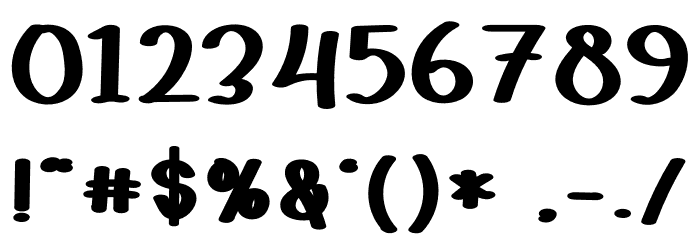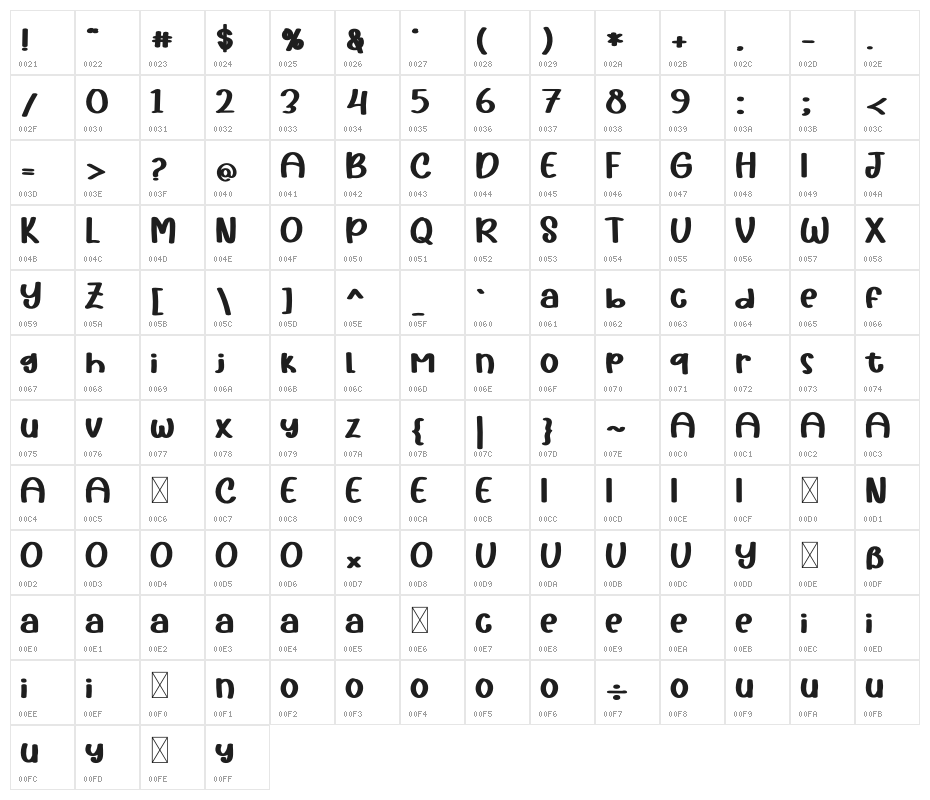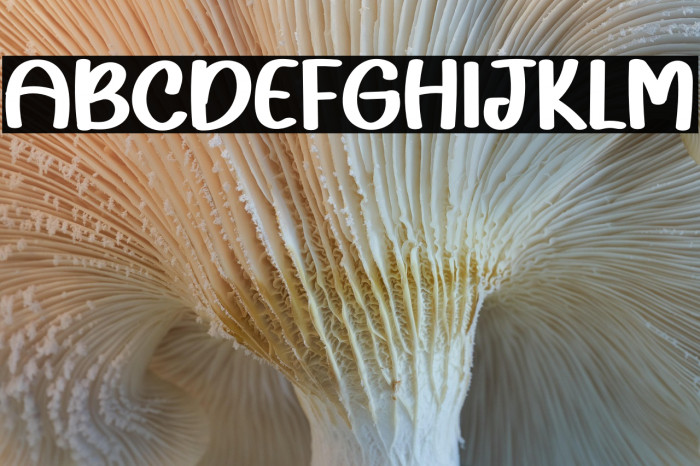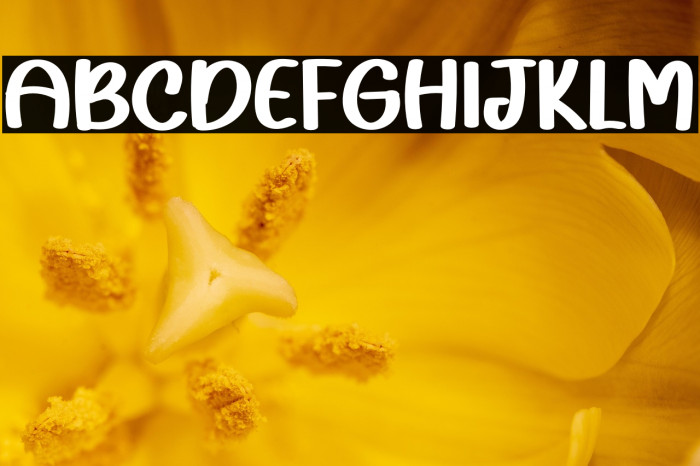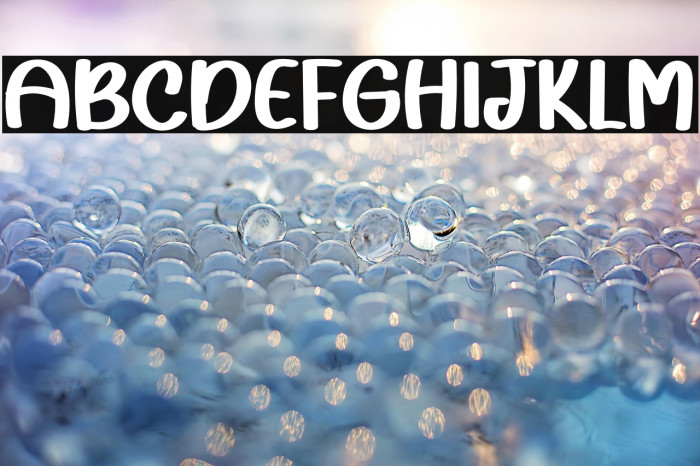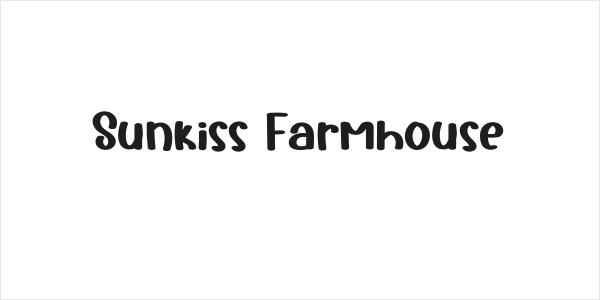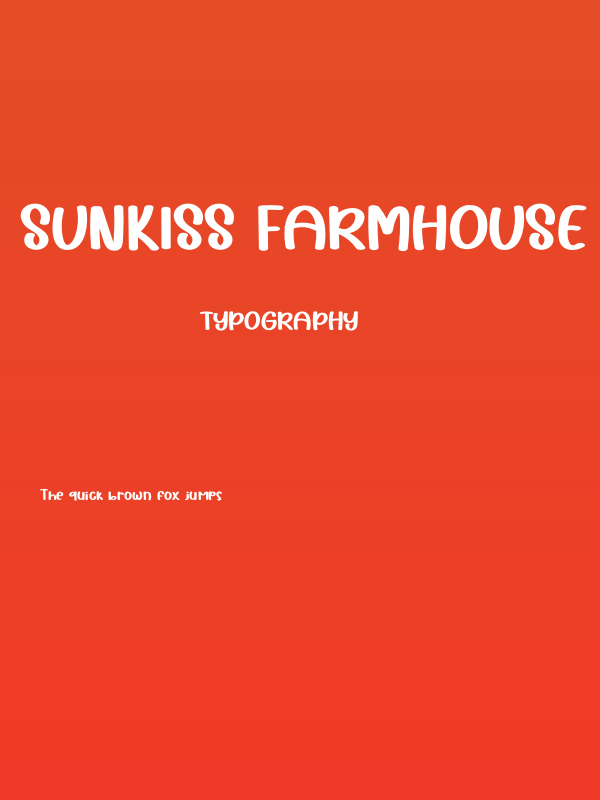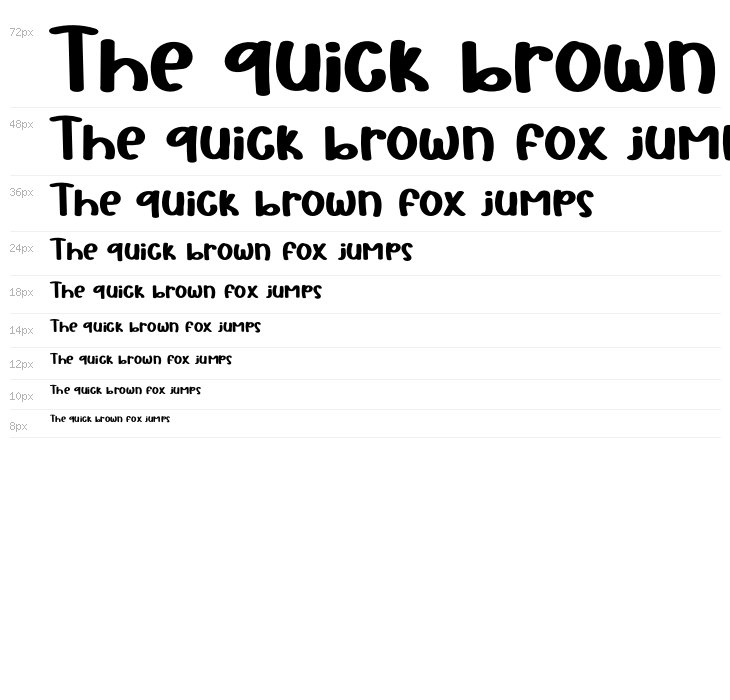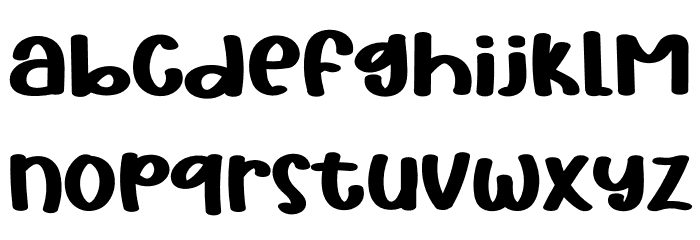
Sunkiss Farmhouse Font
Sunkiss Farmhouse Description
This font features a playful and bold handwritten style, characterized by its thick strokes and rounded edges. The letters are slightly slanted, giving a casual and friendly appearance. The uppercase and lowercase letters maintain a consistent flow, with a slight bounce that adds to its charm. Numbers and special characters are designed with the same playful aesthetic, ensuring a cohesive look across all text. The font's boldness makes it highly legible, even at smaller sizes, while its unique style adds personality to any design.
| Use Case | Headlines, Logos, Social Media |
| Proposed Projects | Ideal for greeting cards, children's books, playful branding, and social media graphics. |